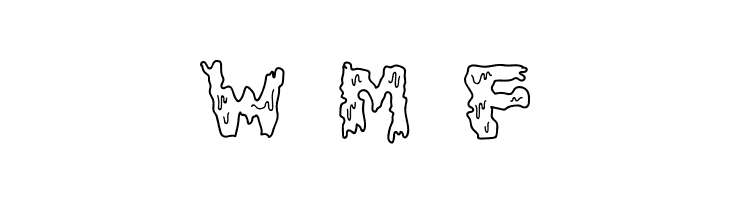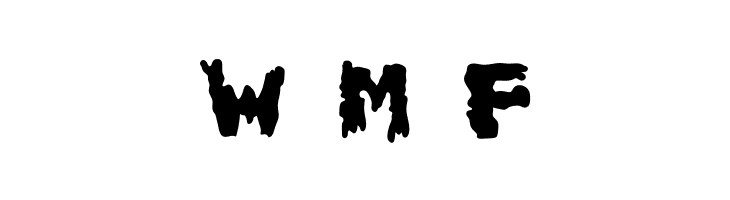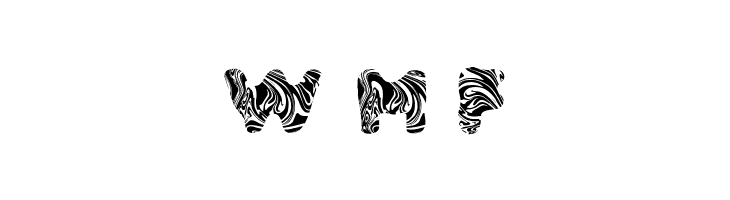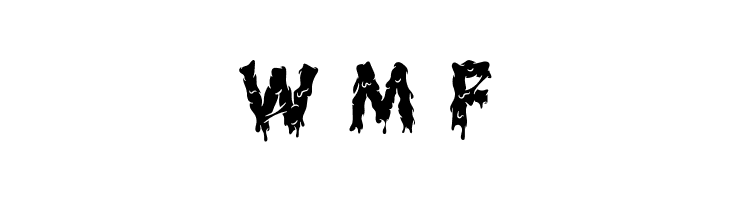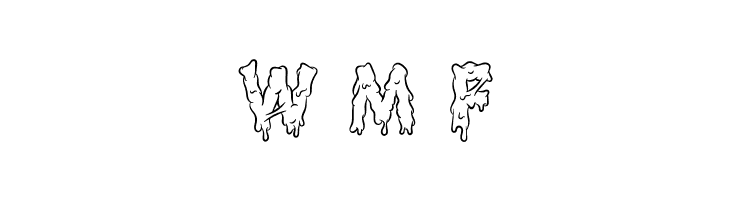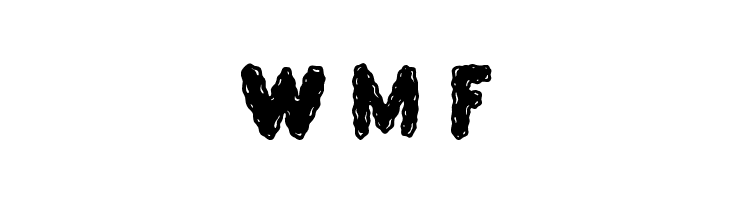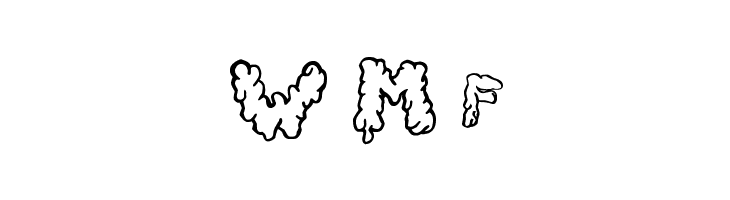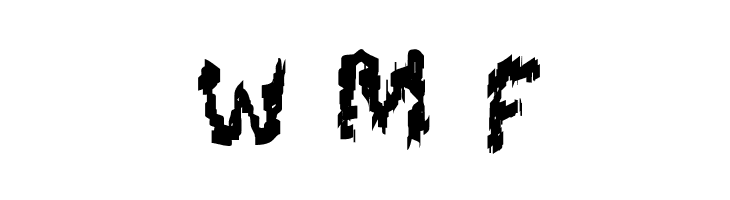
Lethal Slime Font
imagex - www.imagex-fonts.com
A bold, dripping font with a playful, eerie vibe perfect for spooky themes.
Slimed Font
Font by Jonathan S. Harris
A bold, dripping font with a spooky, fluid design.
SlimeBawls Font
A playful, gooey font with a dripping slime effect.
sister slimes font Font
william jhordy
A lively, cursive handwritten font with smooth, flowing lines.
Black Shirt Slime Trail Font
A bold, distressed font with a dripping, chaotic style.
Slime Box Font
Iconian Fonts
A playful, bold font with rounded, bubbly characters and a whimsical vibe.
Slimeball Font
Font by Jonathan Harris - www.tattoowoo.com
A playful, bold font with irregular, blob-like shapes and a fluid, organic style.
Slime and Blood Font
A bold, dripping font with a spooky, oozing effect.
Squidgy Slimes Font
A bold, playful font with thick, rounded characters and a whimsical style.
SLIMEDUNK ROUGH Font
A bold, rough-textured font with a gritty, urban style.
SlimeYogurtDemo Font
A bold, rounded, hand-drawn font with a playful and energetic style.
8801 Font
Slimegirl - covendumpster.tumblr.com
A pixelated, retro-style font inspired by early digital displays.
SlimeSeason Font
A playful, hand-drawn font with tall, narrow letters and a whimsical style.
Slimespooky Font
A bold, spooky font with a dripping slime effect, ideal for Halloween themes.
SLIMEDUNK ITALIC CLEAN Font
A bold, italicized font with a dynamic and modern style.
Grime Slime Font
Font by Cikareotype Studio
A fun, bold, cartoon-style display font with irregular shapes.
Germany Slime Gothic Font
A bold, Gothic-style font with sharp, angular lines and a modern twist.
Slimespooky Outline Font
A spooky, slime-inspired outline font with a playful, eerie aesthetic.
Grime Slime - Dripping Font
Font by Cikareotype Studio